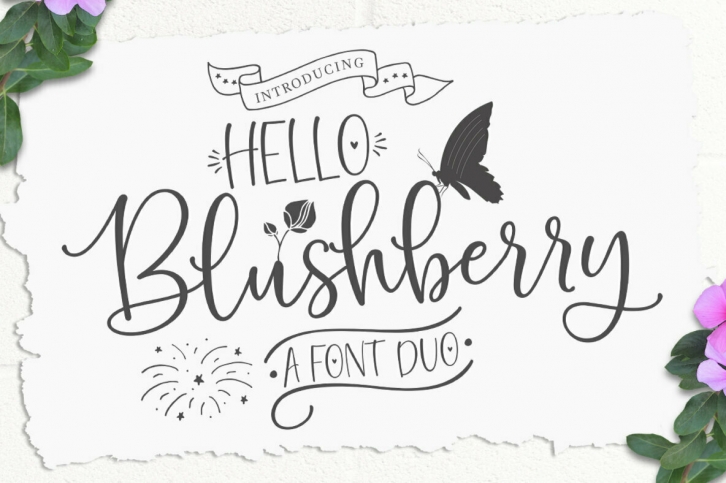
Allow me to introduce Hello Blushberry, a playful script containing many choices of alternative characters to choose from as well as ligatures that look natural to add to the authenticity of letters. A collection of strange and initial swash tips is also included to add finishing touches or fill the design space in your type design.
Hello Blushberry a modern handwriting fonts, loaded with awesome opentype features, and full alternative upper and lower case character sets. make custom letters a dream thanks to all the extra decorative choices you can enter for beautiful and unique customizations - swash, endings, alternative letters and ligatures all make it the prettiest little thing since tutus and tiara.
Designed to work harmoniously, this duo font consists of super fine and casual signature scripts and a complete and clean set of all sans serif letters. Sans Serif fonts consist of two outline fonts of different weights, and a regular version. Layer them with different colors and turbidity to get a million different views.
This font is perfect for branding, logos, web and editorial design, branding, prints, invitations, crafts, quotes, and more.